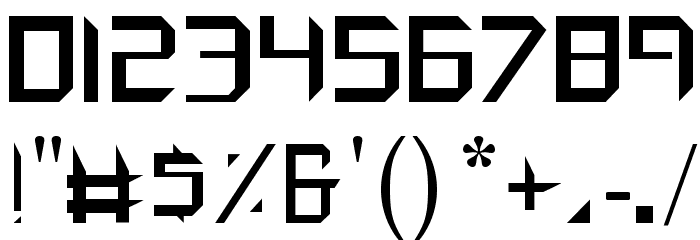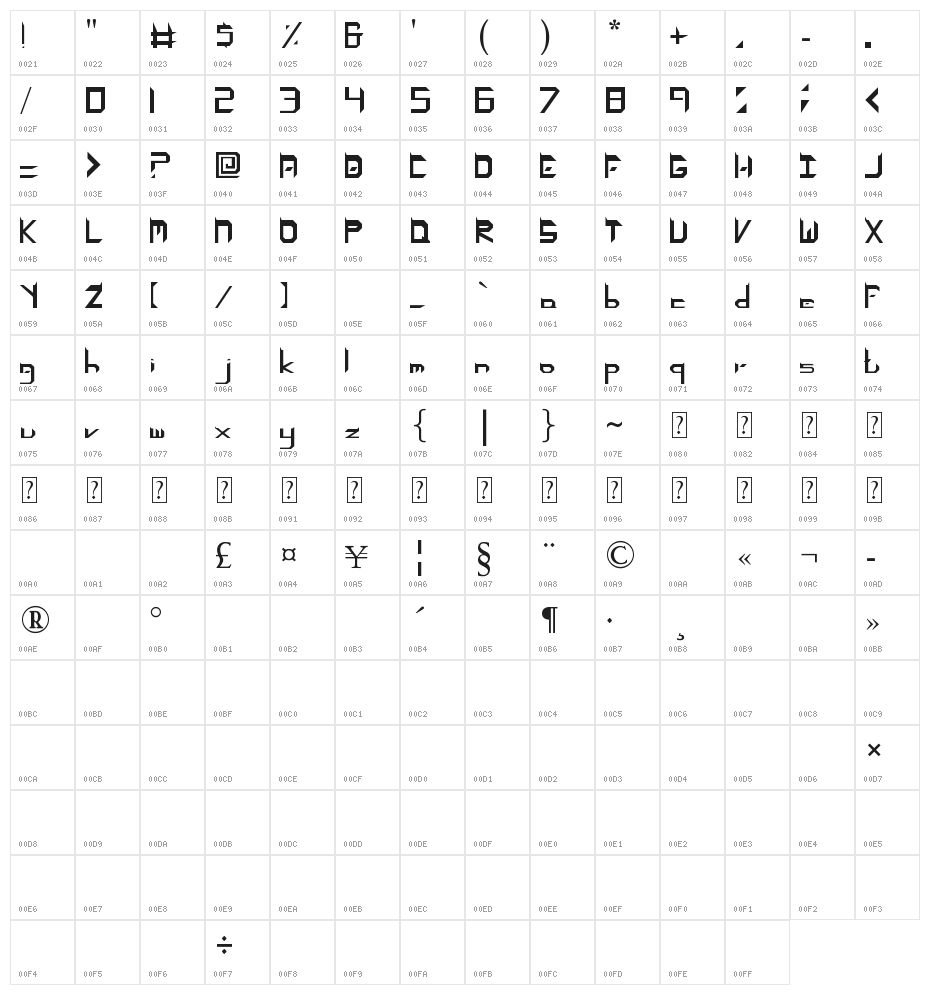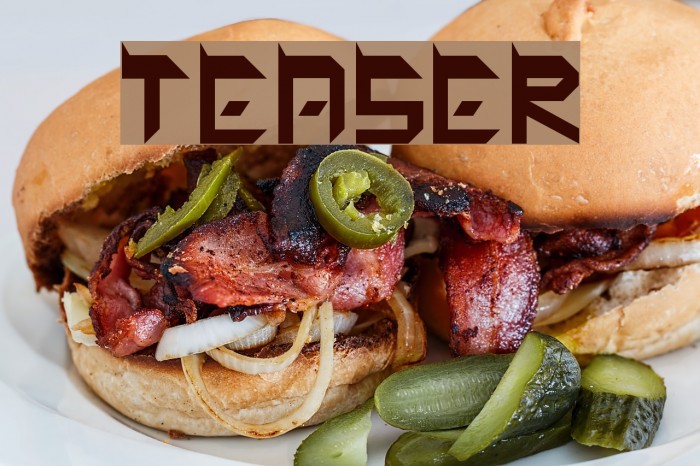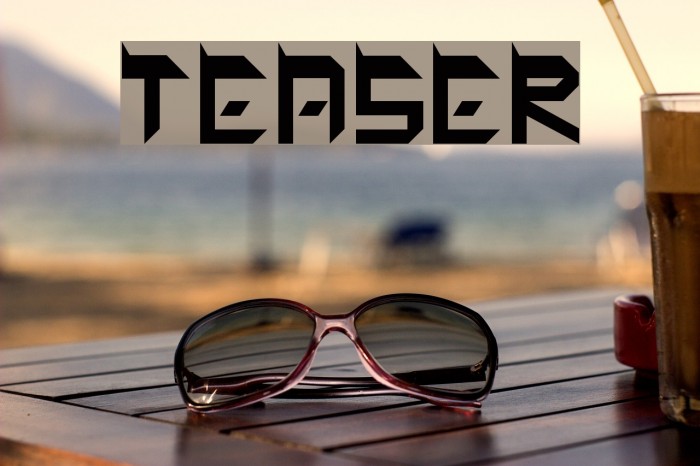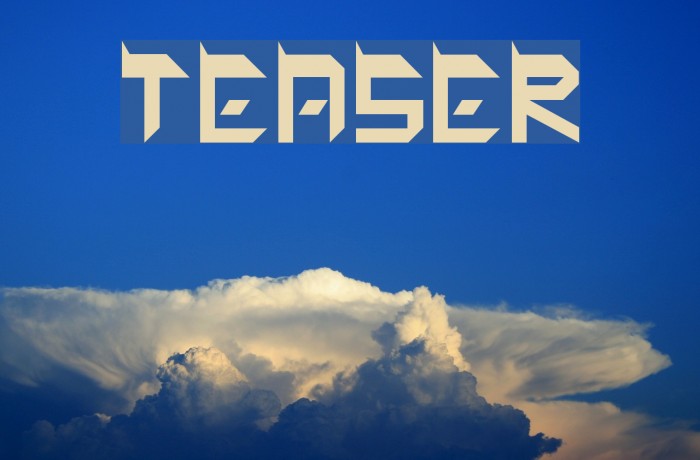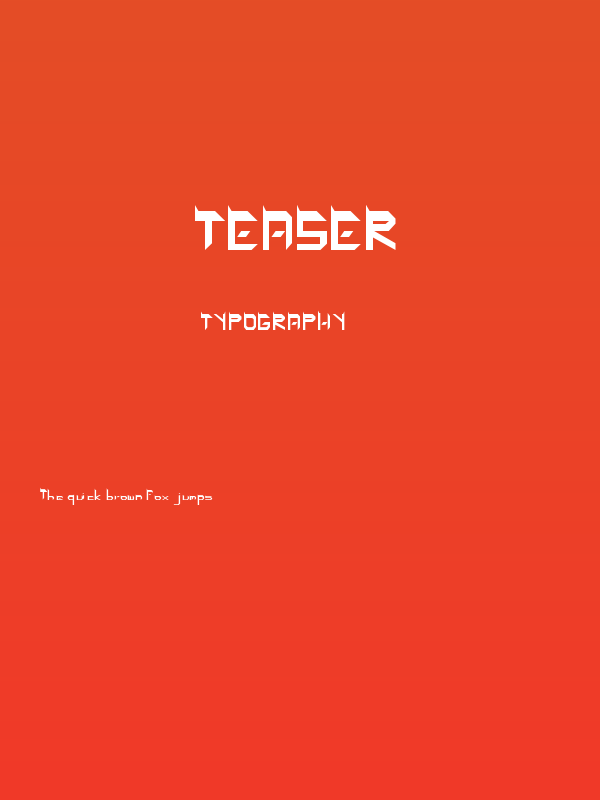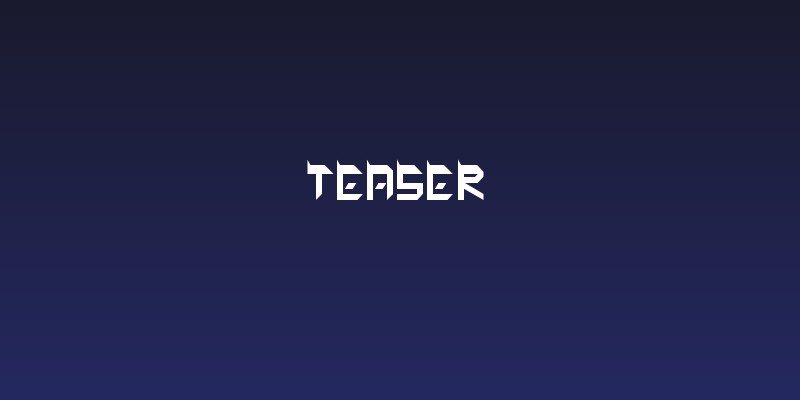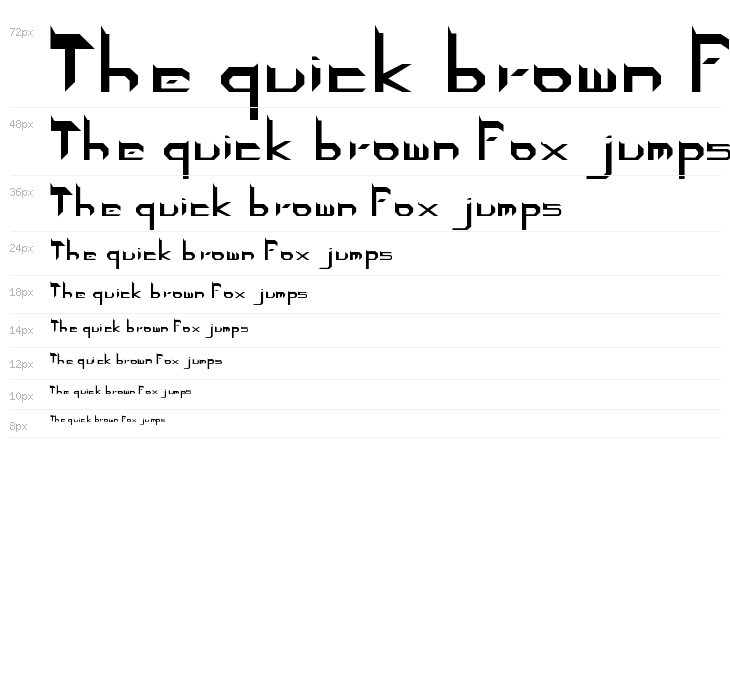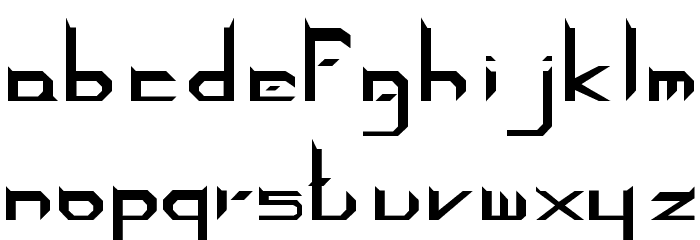
TEASER Font
TEASER Description
This font features a bold, geometric design with sharp angles and a futuristic aesthetic. The characters are constructed with a combination of straight lines and pointed edges, giving it a distinct, edgy appearance. The uppercase and lowercase letters maintain a consistent style, with the lowercase letters slightly more condensed. Numbers and special characters follow the same angular theme, ensuring uniformity across the font. The overall look is modern and dynamic, suitable for projects that require a strong visual impact.